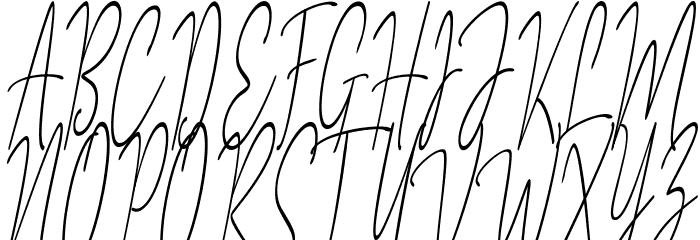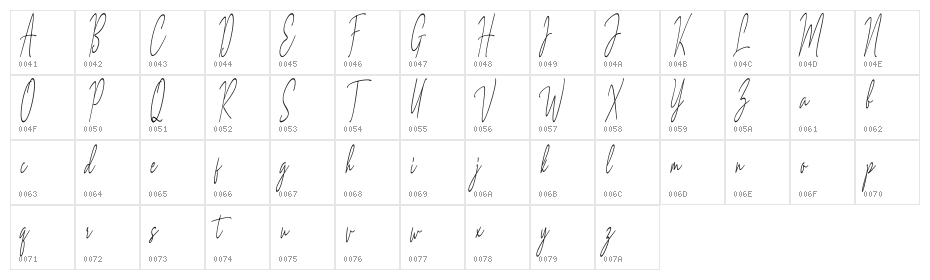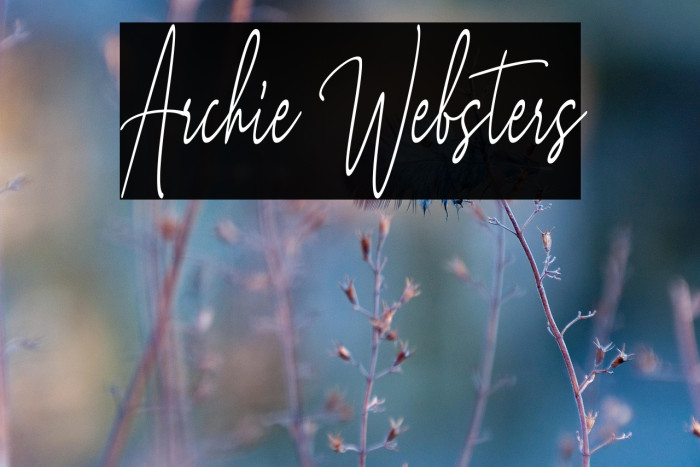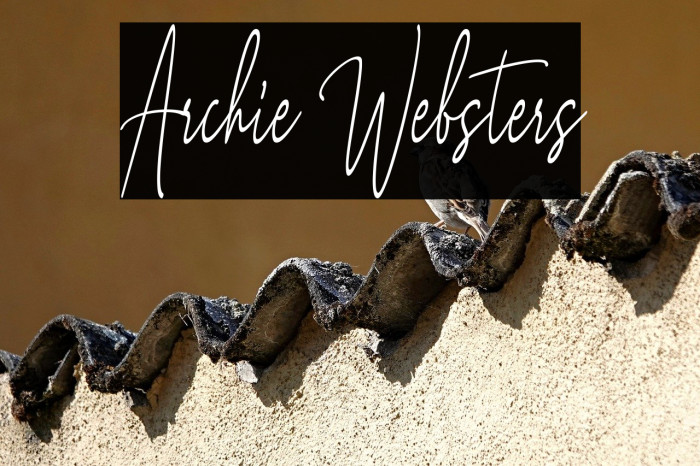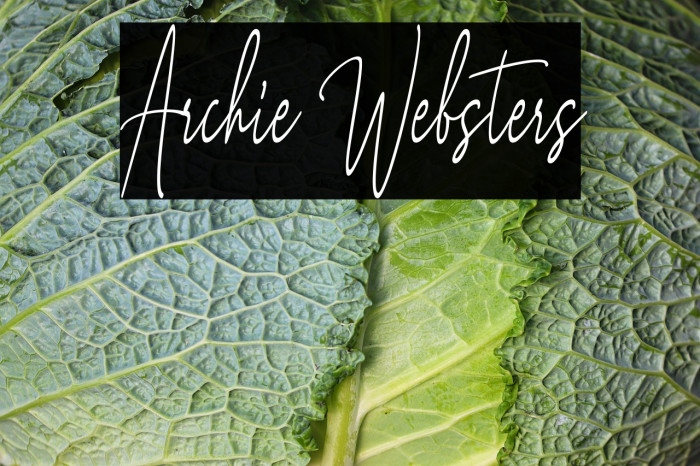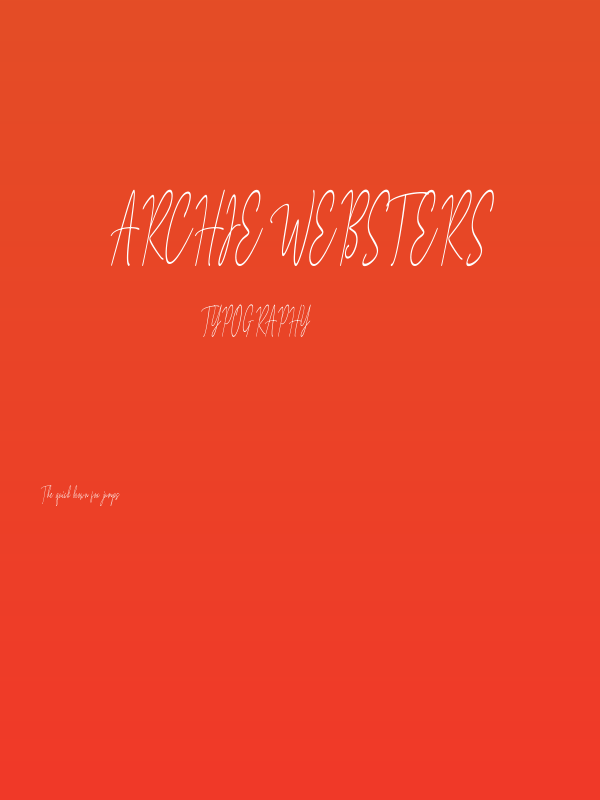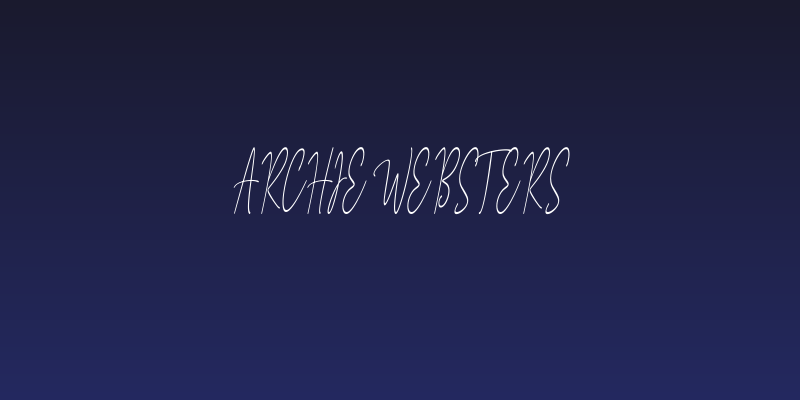
Archie Websters Font
Archie Websters Description
This font exhibits a sophisticated and elegant handwritten style, characterized by its flowing, cursive script. The letters are connected seamlessly, creating a sense of continuity and fluidity. The uppercase letters are tall and slender, while the lowercase letters maintain a consistent height, enhancing readability. The strokes are delicate and thin, providing a graceful appearance. The overall design is reminiscent of traditional calligraphy, yet it maintains a modern touch, making it versatile for various design applications.
| Overall Style | Elegant, Modern |
| Proposed Projects | Ideal for wedding invitations, elegant branding, personal stationery, and artistic projects requiring a touch of sophistication. |